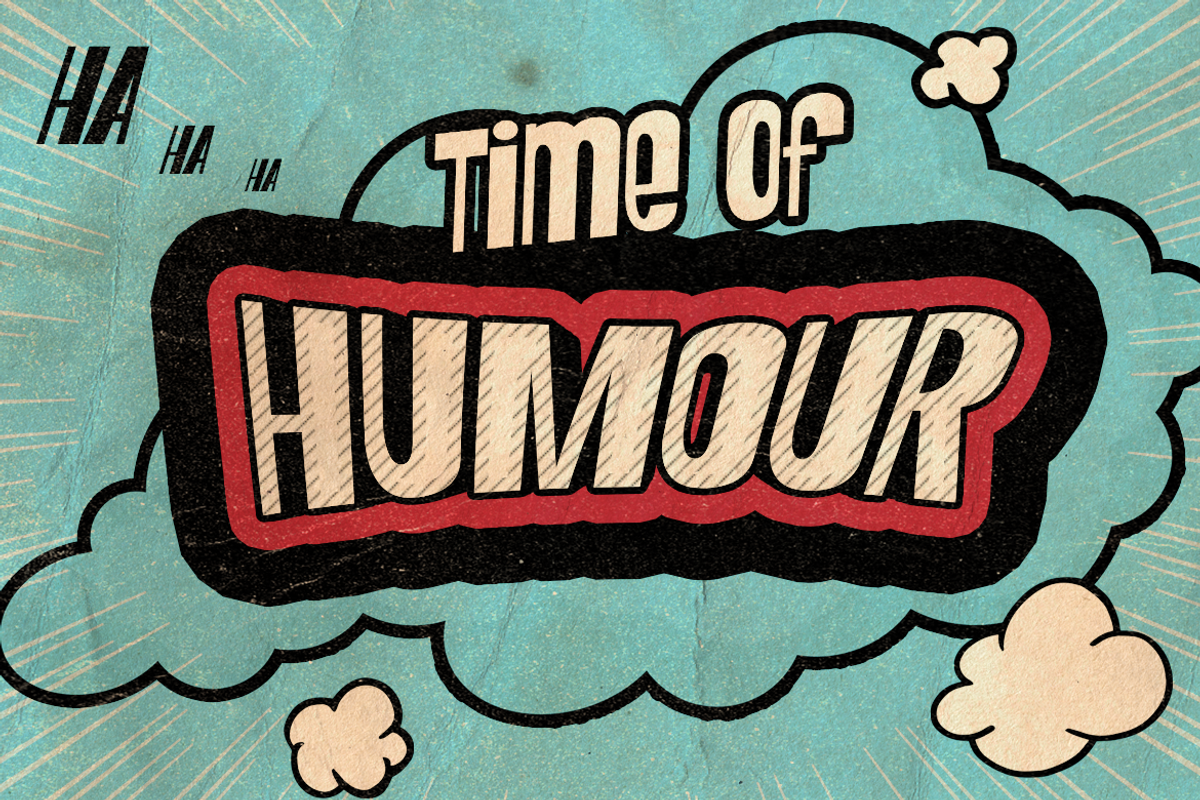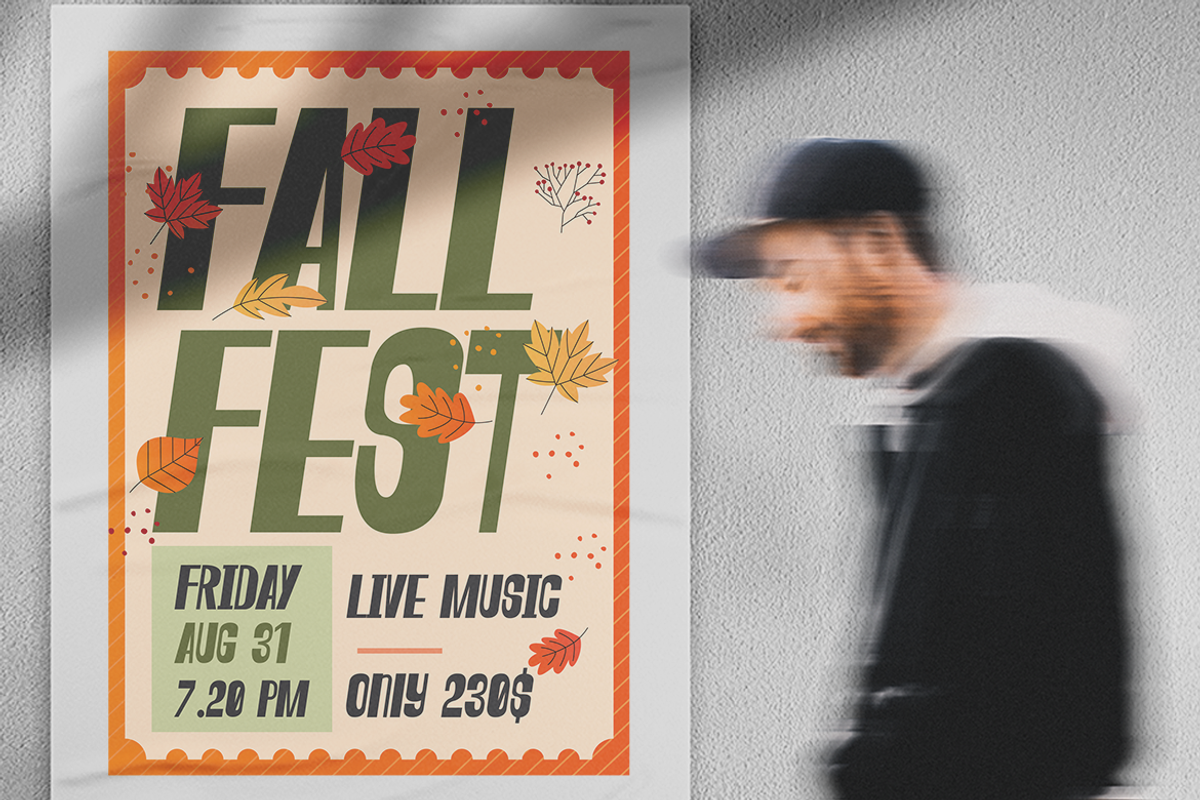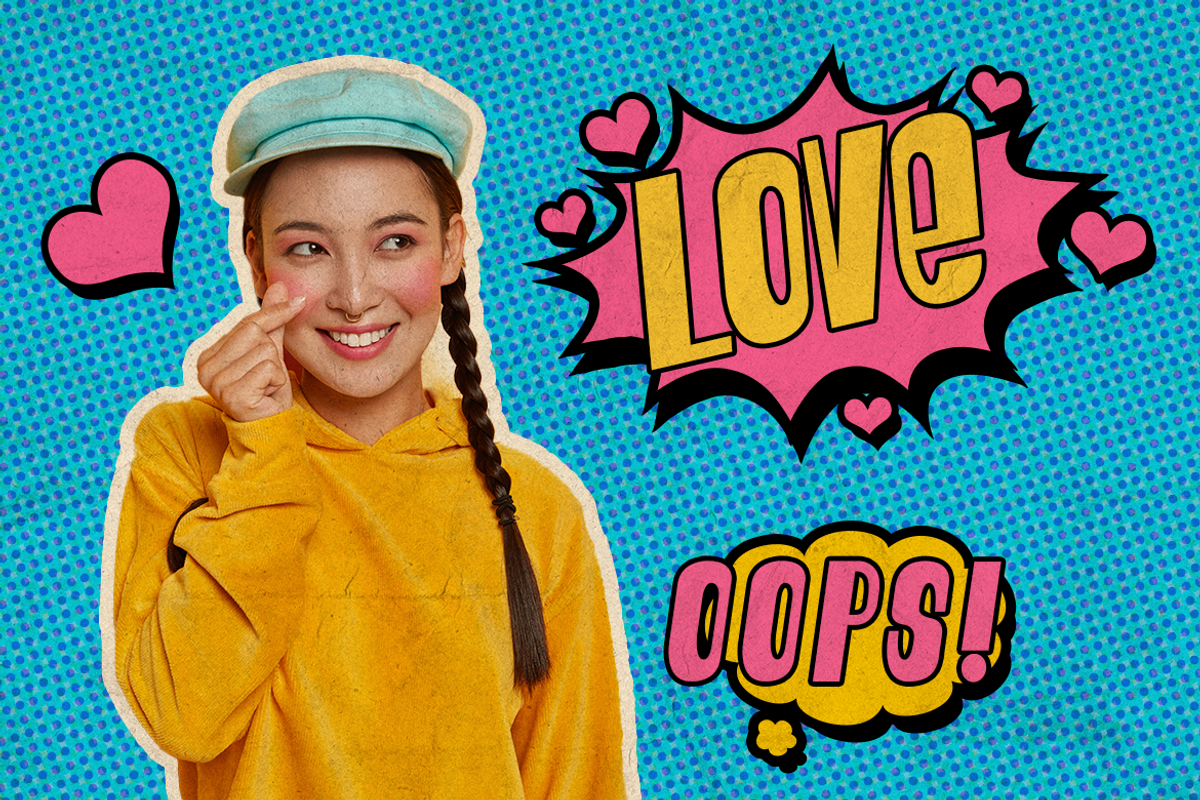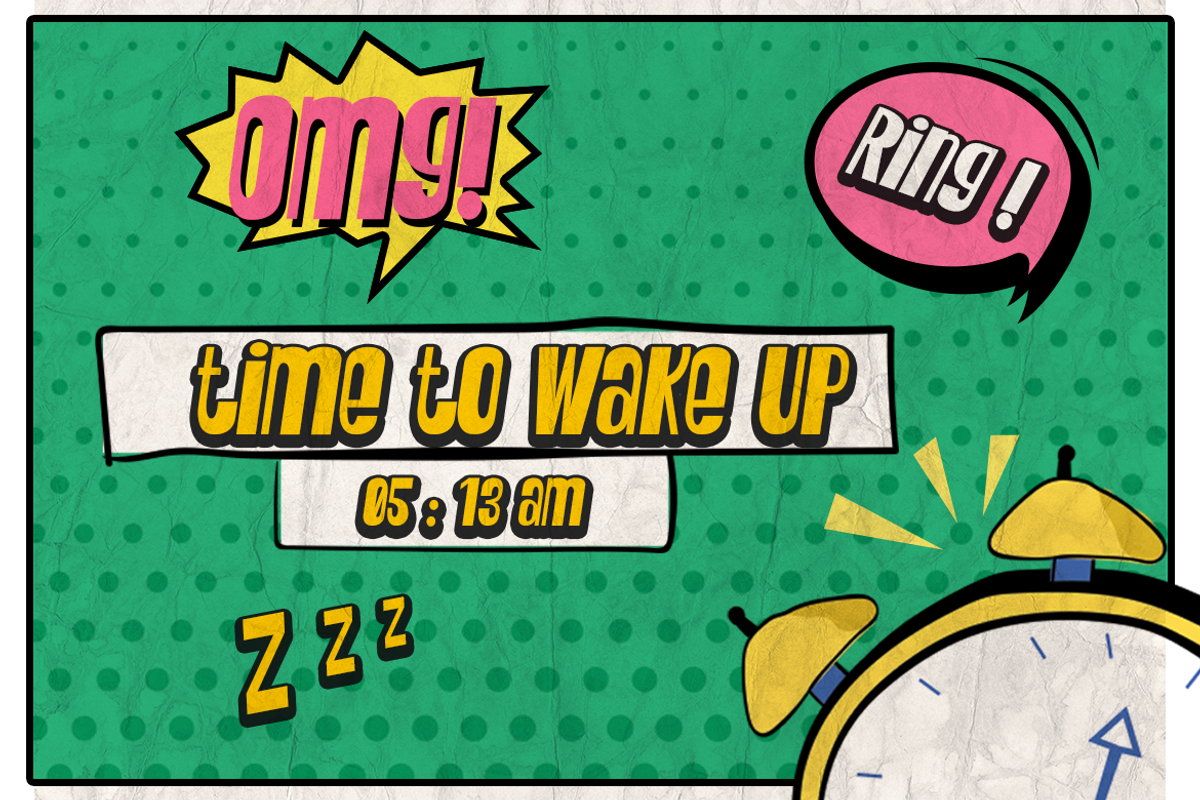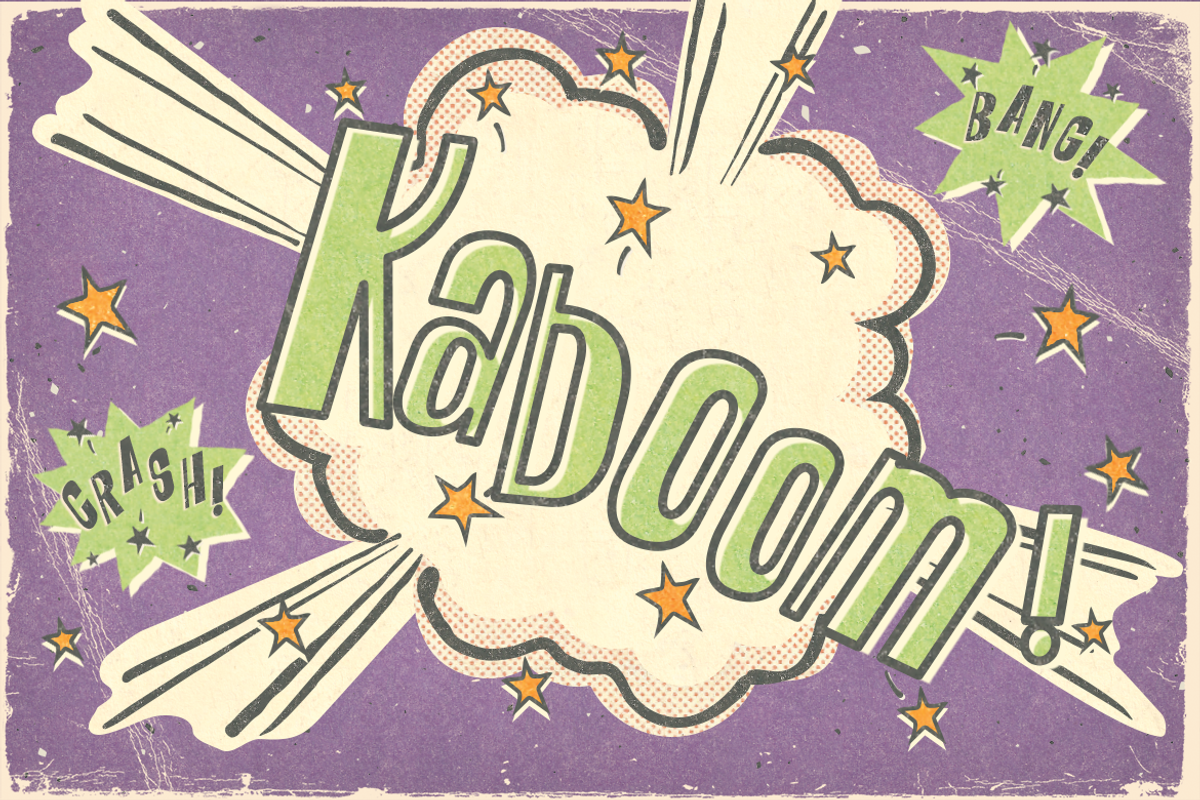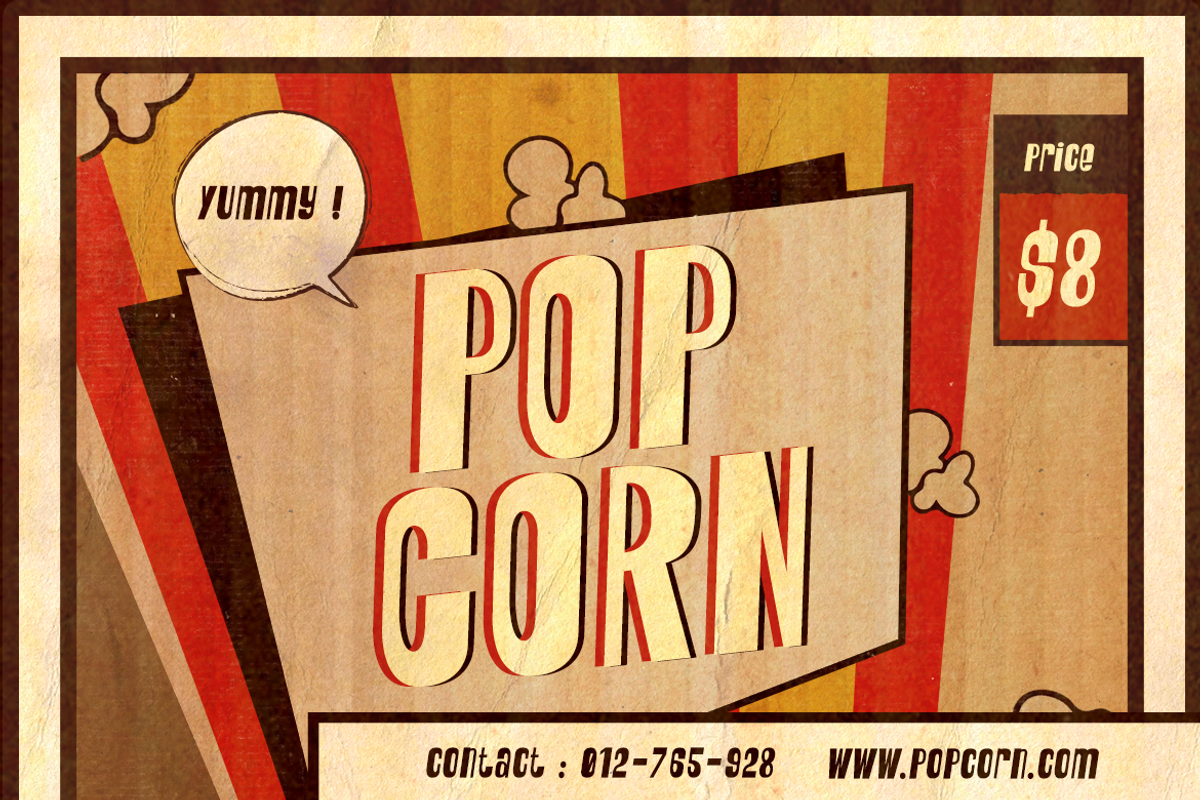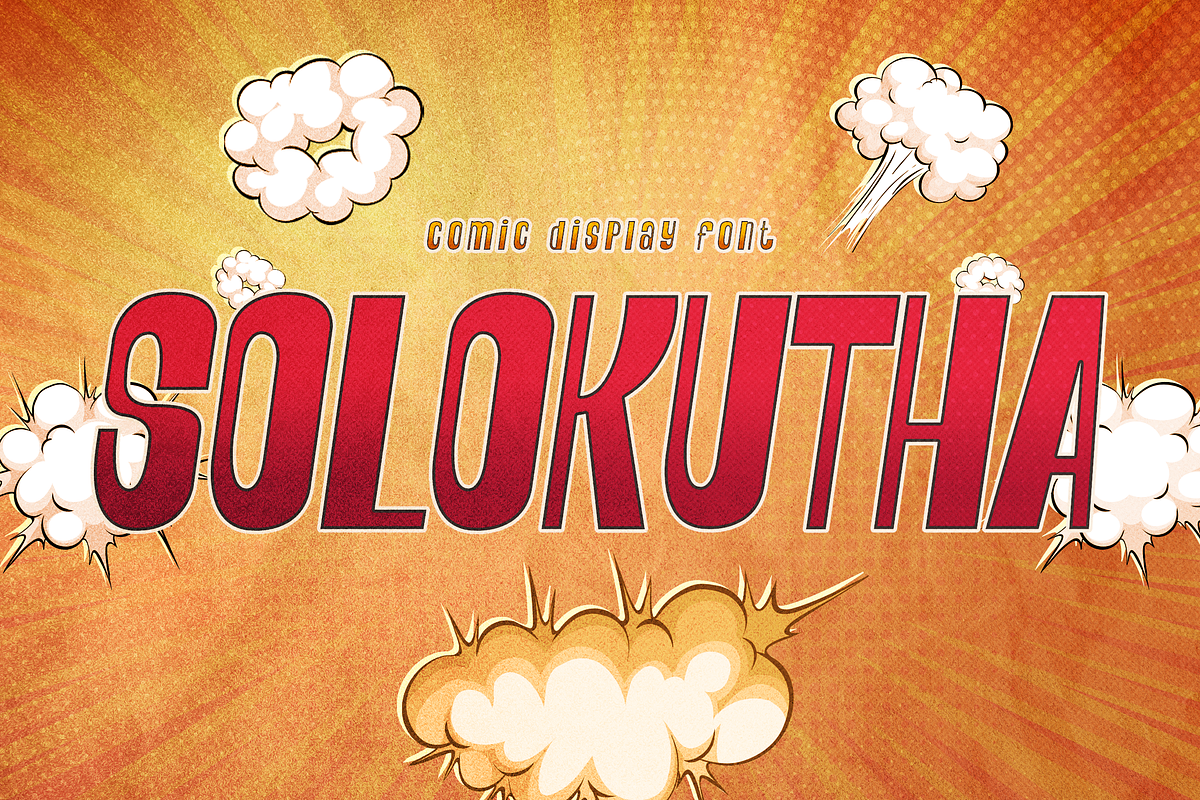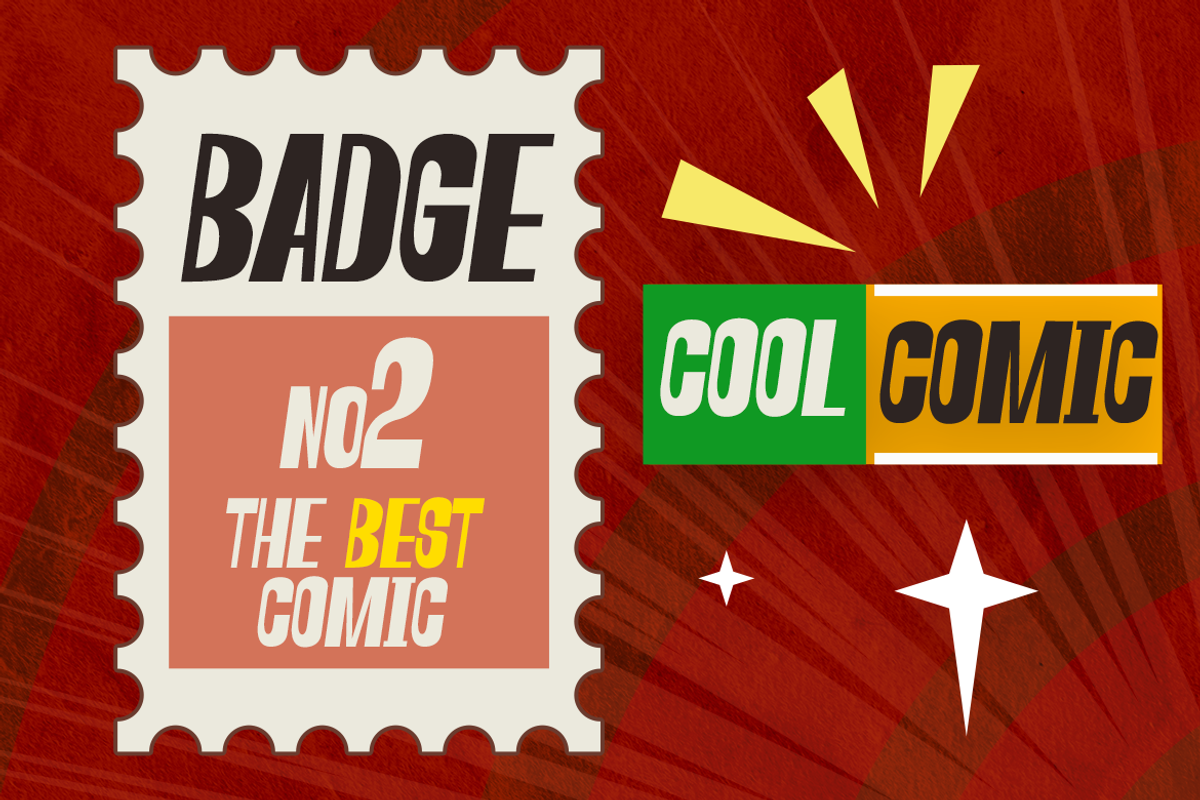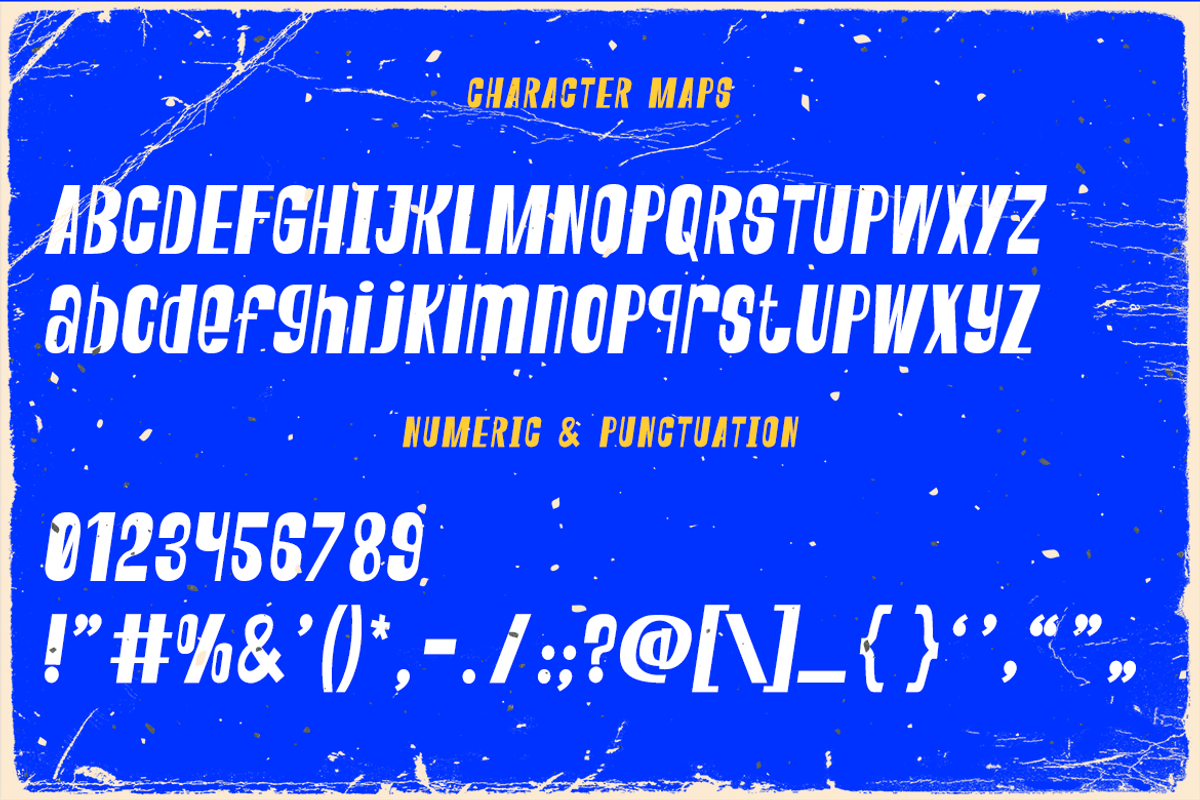
SOLOKUTHA - Cool Comic Font
SOLOKUTHA - Comic Display Font
Pop art and all about fun times in those 80s era. SOLOKUTHA stand tall and bring smile to all.
Suit perfect for pop culture books market, online games, teens event posters, school supplies font, posters, movie titles, youtube covers, youtube thumbnails, social media page covers, and so on...